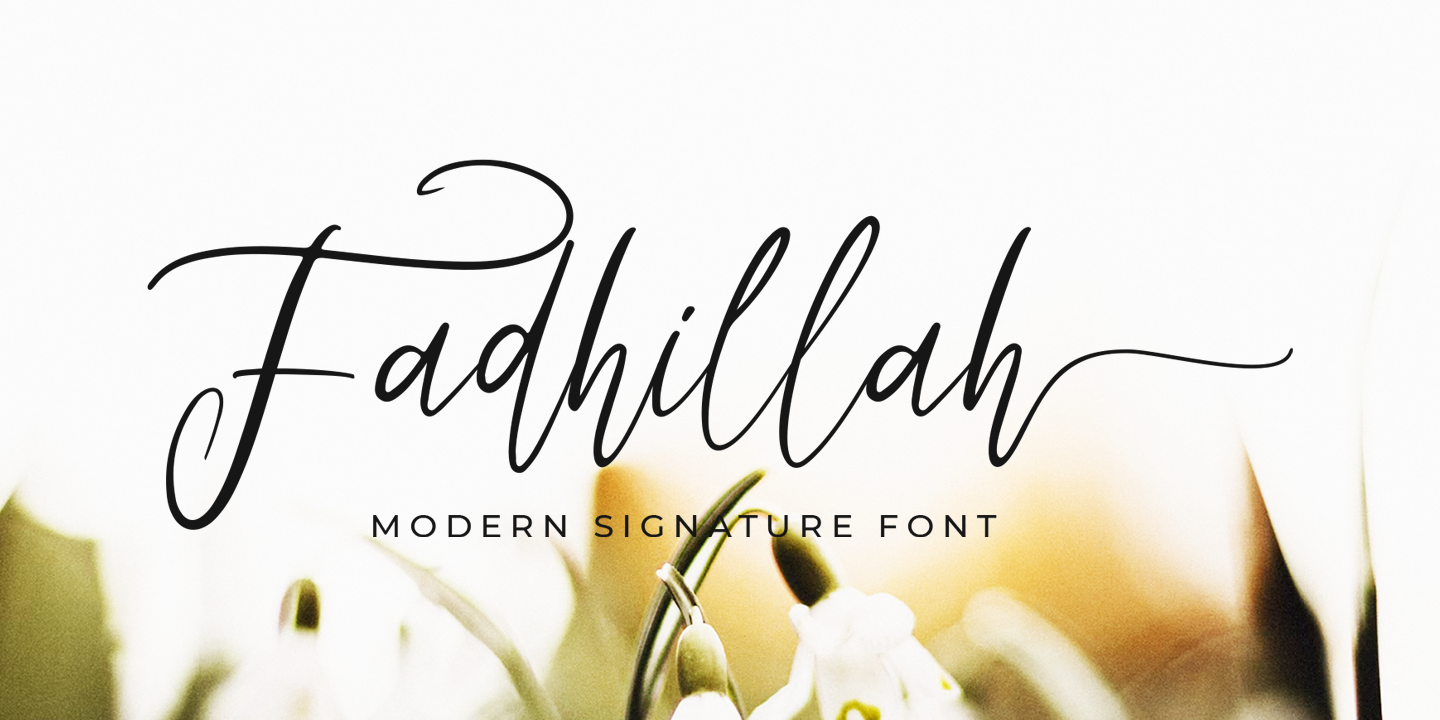
Fadhillah Signature Font is perfect for personal branding projects, luxury signature logos, wedding invitation design, elegant stationery collections, boutique fashion labels, artistic portfolio branding, sophisticated business cards, premium product signatures, exclusive event materials, and high-end personalized marketing campaigns. This distinctive typeface excels in environments where personal authenticity and signature elegance are essential for creating memorable individual brand presence.
What makes Fadhillah Signature Font exciting is its authentic recreation of natural handwritten signatures that captures the intimate personality and distinctive character of personal penmanship. The font features flowing, organic letterforms with elegant variations and sophisticated connecting strokes that convey individuality, refinement, and the timeless appeal of genuine handwritten correspondence. This personal aesthetic makes it ideal for brands seeking to communicate authenticity, exclusivity, and the intimate touch of personal signature style.
Fadhillah Signature Font family includes Regular, Bold, Light, Flourished, Elegant, Script, Calligraphic, and Decorative variants. Each style maintains the font's distinctive signature character while offering different levels of formality and personal expression, enabling designers to create authentic handwritten compositions that celebrate individual style and personal branding excellence.
The Fadhillah Signature Font Free Download offers designers access to a premium signature typeface that embodies the spirit of personal authenticity and handwritten elegance. This font's intimate aesthetic and sophisticated qualities make it particularly valuable for personal brands, luxury services, and exclusive organizations seeking to establish genuine connections with audiences who appreciate individual character and signature sophistication.
Creative professionals appreciate the font's ability to instantly communicate authenticity, personality, and exclusive character. The letterforms' handwritten characteristics and signature-inspired details create personal connections that standard fonts cannot achieve, making it essential for projects requiring distinctive individual personality and signature appeal.
When working with Fadhillah Signature Font, designers can create compelling visual narratives that resonate with luxury audiences and personalization-conscious consumers. The font's signature character makes it especially effective for brands in luxury services, personal branding, exclusive products, and high-end customization where authentic personal touch and signature sophistication are crucial for premium positioning.
For digital applications, Fadhillah Signature Font maintains its distinctive handwritten qualities across different platforms while ensuring readability in modern luxury contexts. Its optimized character spacing preserves the natural signature flow essential for authentic personal appeal.
Luxury branding agencies consistently select Fadhillah Signature Font for projects requiring genuine personal appeal and signature authenticity, where conventional typography cannot capture the desired individuality and handwritten sophistication that defines contemporary personal branding and luxury customization culture.